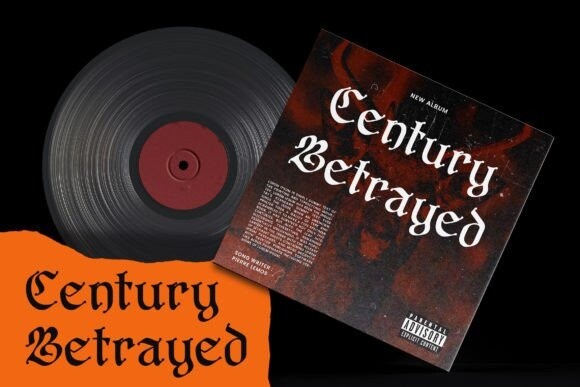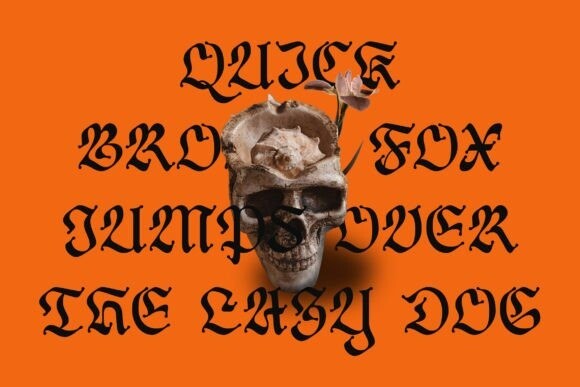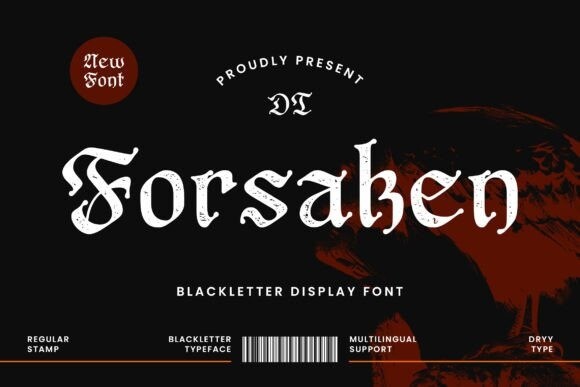
Forsaken Blackletter Font
Forsaken Blackletter Font is inspired by someone who was abandoned by the one who just took his heart. This font I created is meaningful & very versatile, fits various designs, elevating them to the highest level. Add this font to your favorite creative ideas and see the results!